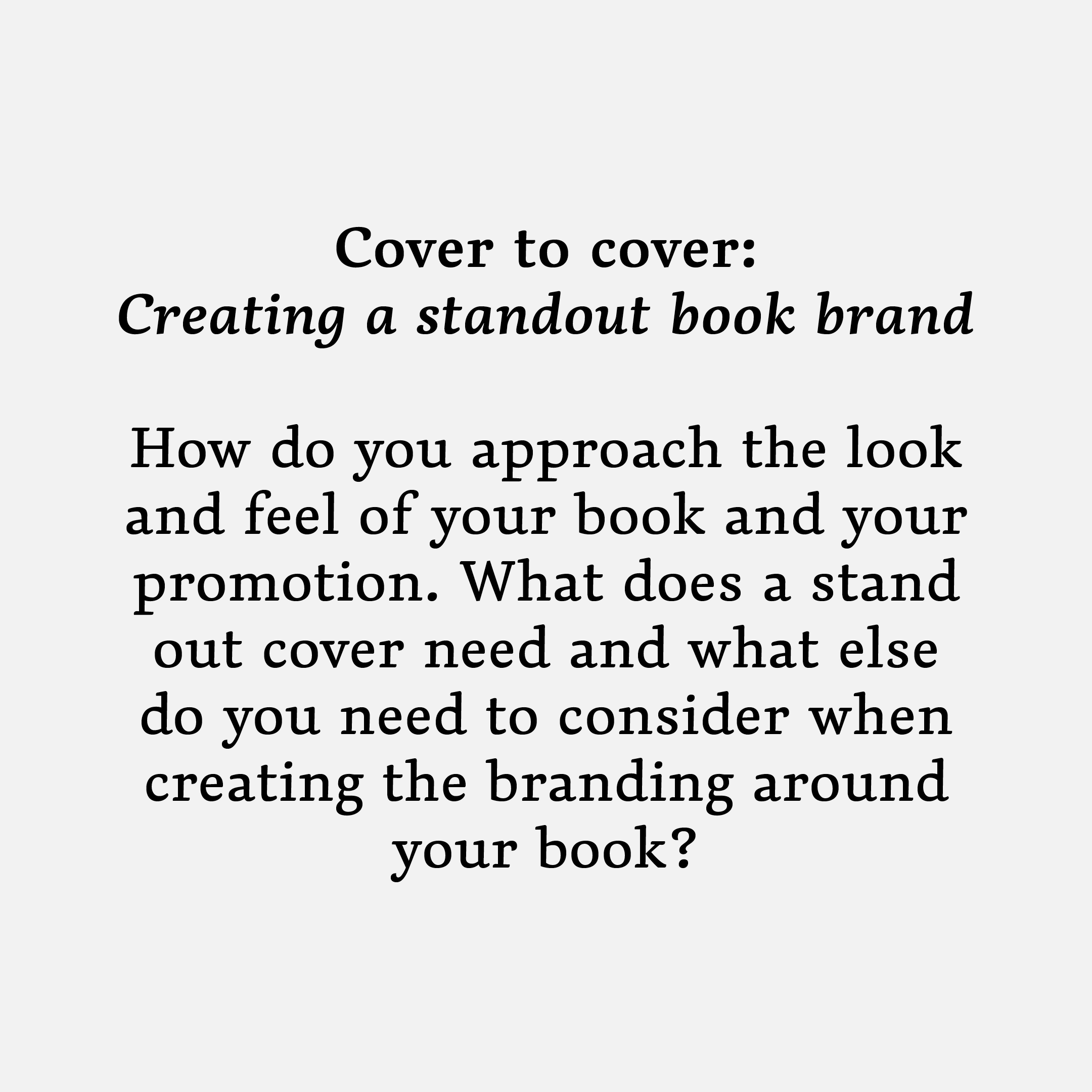
Dederon
The initial inspiration for the Dederon typeface was the atmosphere of the original design found in the basic version of the Liberta typeface by Herbert Thannehaeuser, released by the East German type foundry Typoart in 1960. It borrows from its widely spaced uppercase letters, slightly conical stems, and an asymmetrical serif design without brackets. However, it continues to create a distinctive character based on Old Style Roman typefaces, with a slanted shading axis, a slightly calligraphic touch, and specific details in the terminals, shoulders, ears, and open strokes. The italic is relatively wide, exhibiting a playful character that is further enhanced by generous, softened extensions reminiscent of fresh plant shoots. Dederon has proven itself excellently as a book typeface, especially in children’s books, where it creates a pleasantly warm-toned typeset at larger sizes.
• Design: Tomáš Brousil